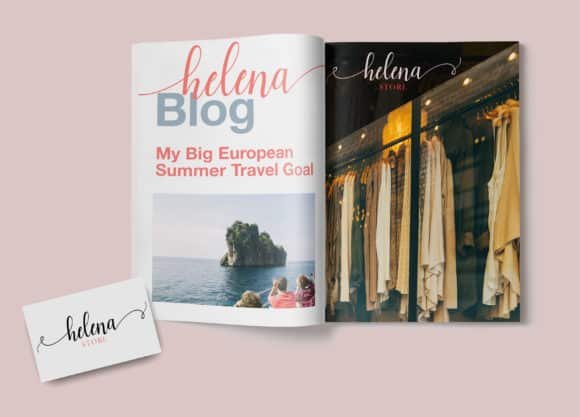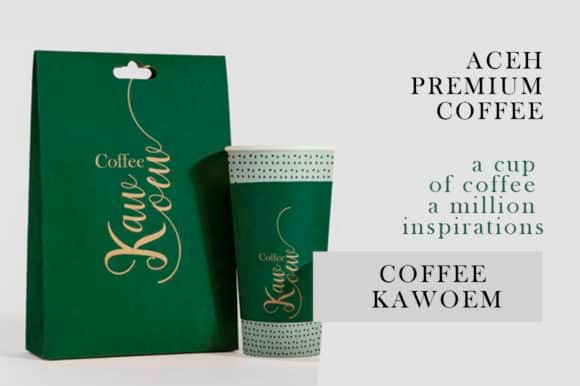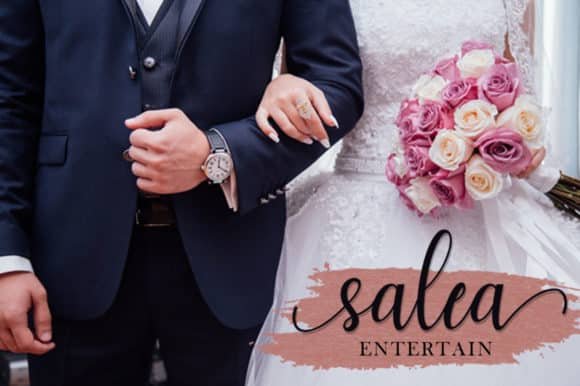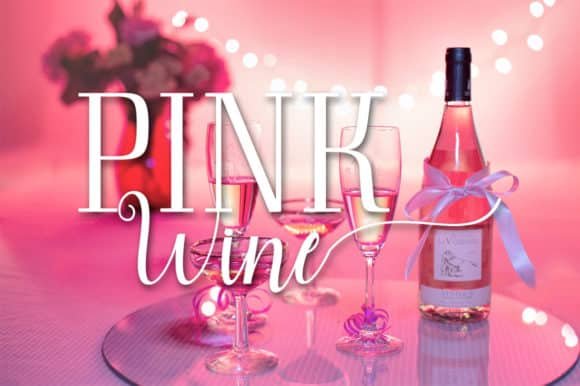
Mullia Font
Musafir LAB
Mullia is a sweet, soft hand-lettered script. Fall in love with its authentic feel and use it to create gorgeous wedding invitations, beautiful stationary art, eye-catching social media posts, and cute greeting cards.